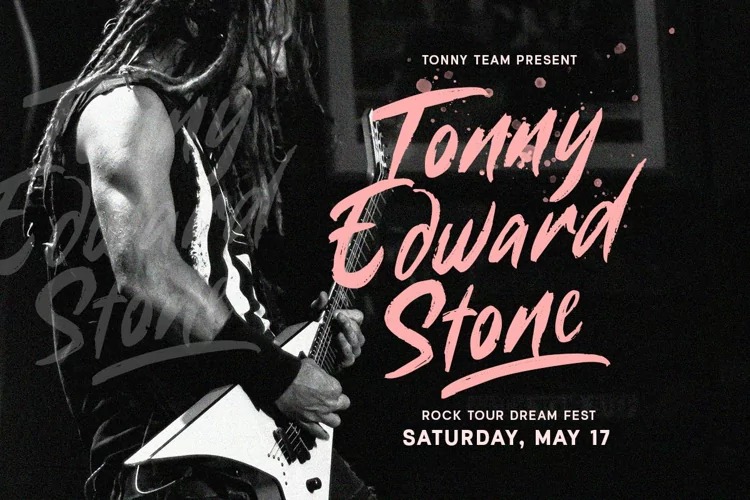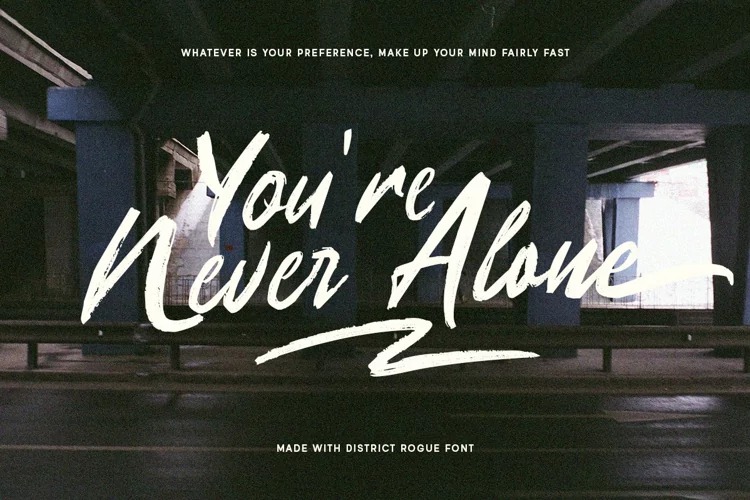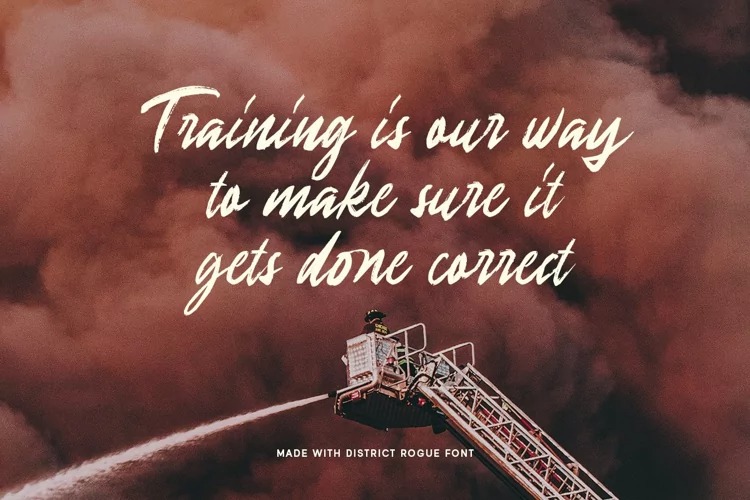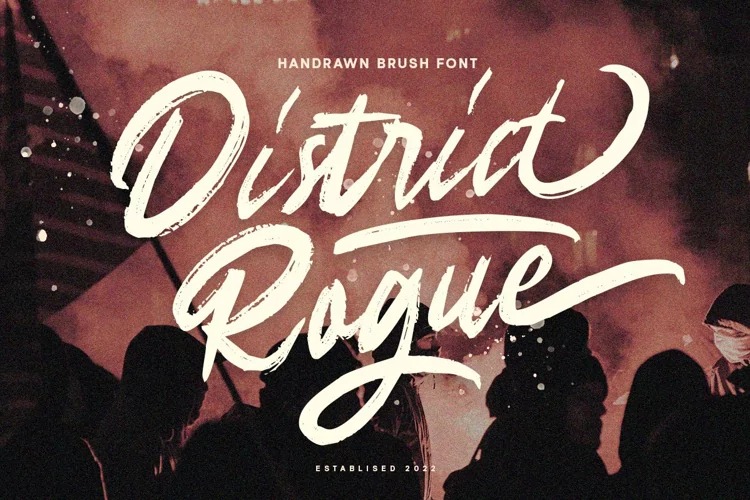
District Rogue Font
District Rogue Brush Font is a brush lettering typeface inspired by the signature retro and vintage designs that can be found in shop windows and billboards on the street. This font is also suitable to be applied especially in logo, and the other various formal forms such as invitations, labels, logos, magazines, books, greeting / wedding cards, packaging, fashion, make up, stationery, novels, labels or any type of advertising purpose.